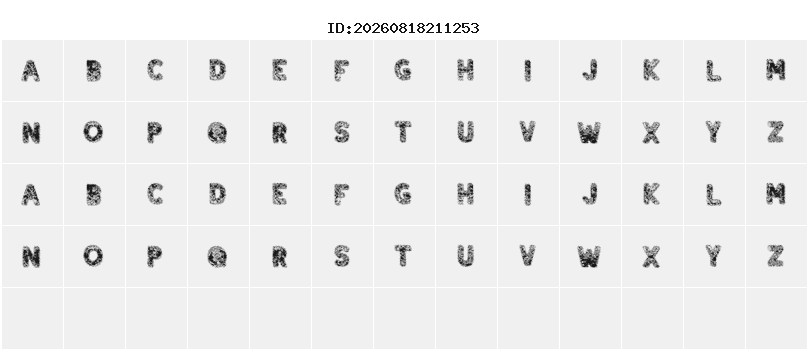
• Font Name: Six weeks ago
• Full Font Name: Six weeks ago
• Character Count: 53
• Designer: Frédéric Rich
• Manufacturer: Frédéric Rich
About Six weeks ago.ttf
Six weeks ago.ttf is a modern, elegant sans-serif font designed for ultimate readability and visual harmony. Perfect for branding, headlines, web design, and print materials.